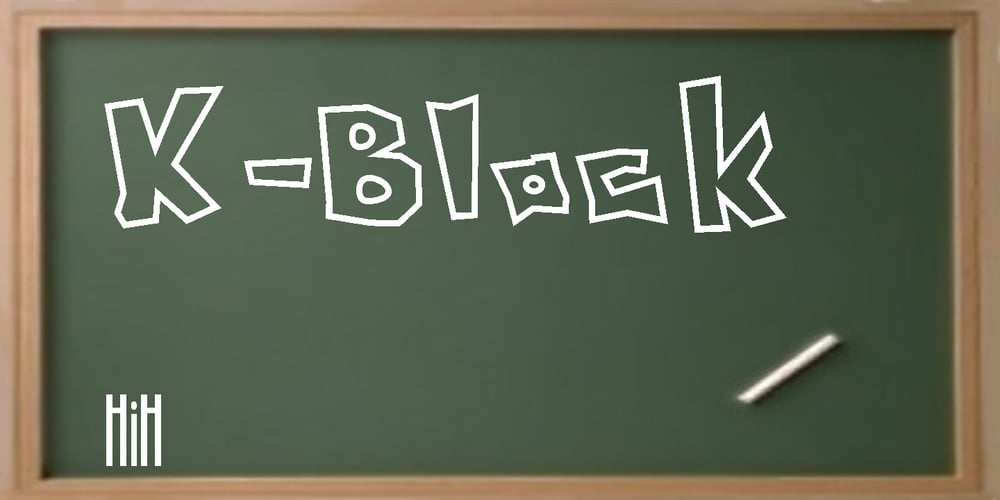
K-Block Font Family was designed by Kristina Lee and published by HiH. K-Block contains 3 styles and family package options. K-Block was inspired by a hand-lettered sign by a young lady by the name of Kristina Lee. It captures a light-hearted, youthful feeling and is not intended to be taken too seriously. It was drawn for fun and is fun to use. Its very inconsistency insists on being casual and relaxed. Probably better for a birthday party announcement than a bank letterhead. Can you imagine a Just-For-Fun National Bank? K-Block Solid compliments K-Block and provides a stronger presence when required. For two-color work, K-Block can be layered on top of K-Block Solid to provide a different color outline for a very effective presentation. Full Western European character set plus alternate g and y, as well as a Th ligature. If you have a drawing program like Corel Draw, you can easily convert the alternate g and y to curves and stretch out the tails to underline an entire word. The zip package of each font includes two versions. There is an OTF version which is in Open PS (Post Script Type 1) format and a TTF version which is in Open TT (True Type)format. Use whichever works best for your applications. K-Block and K-Block Solid are sold separately.